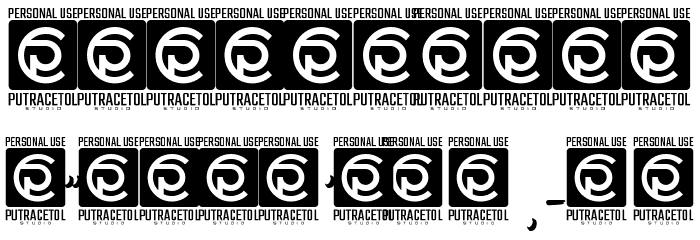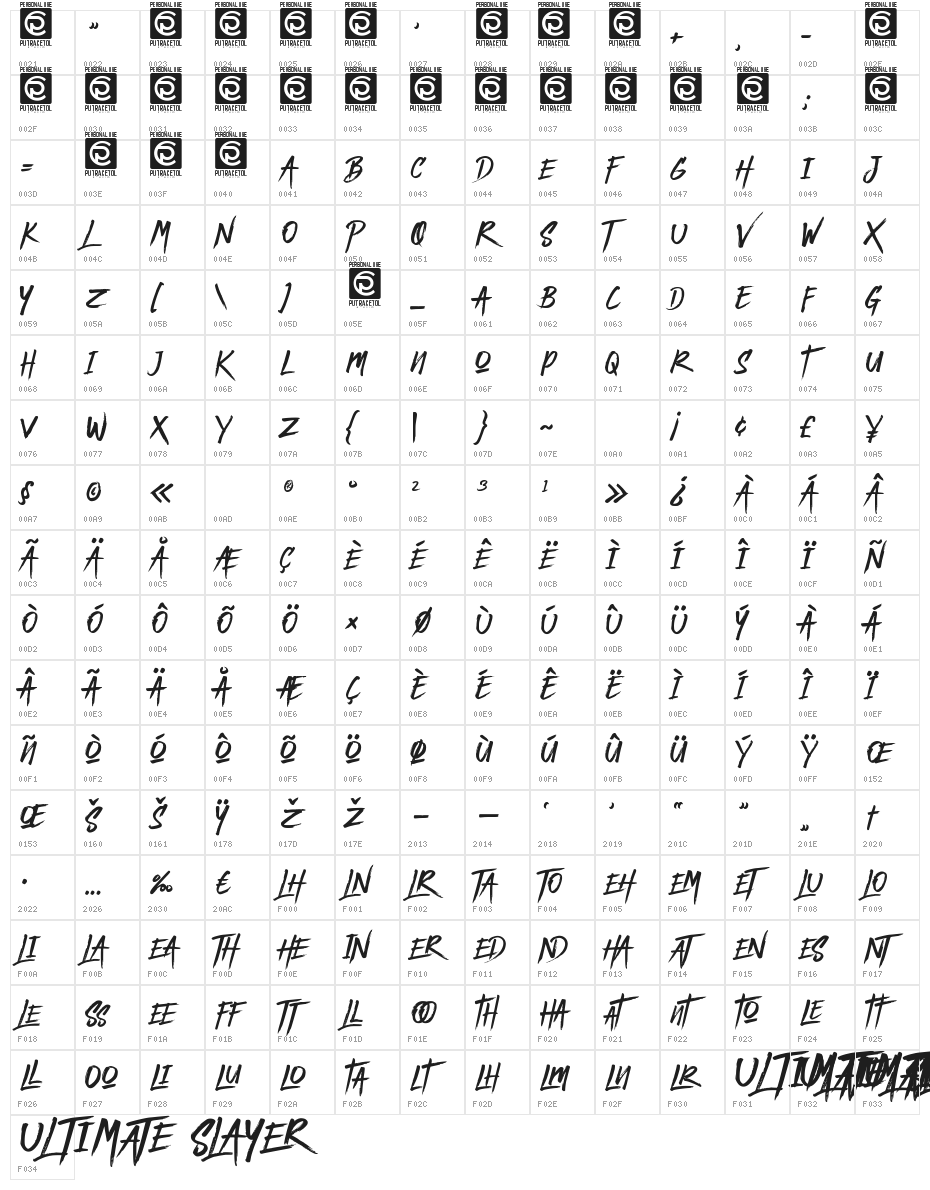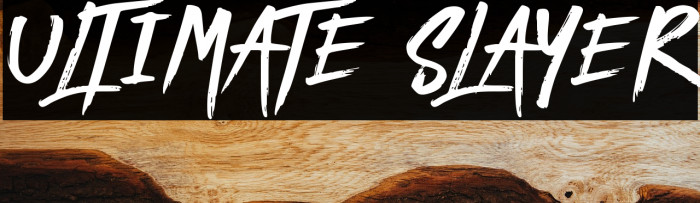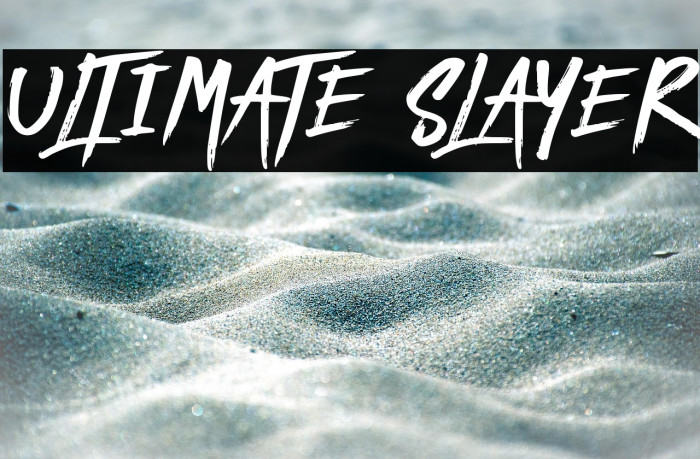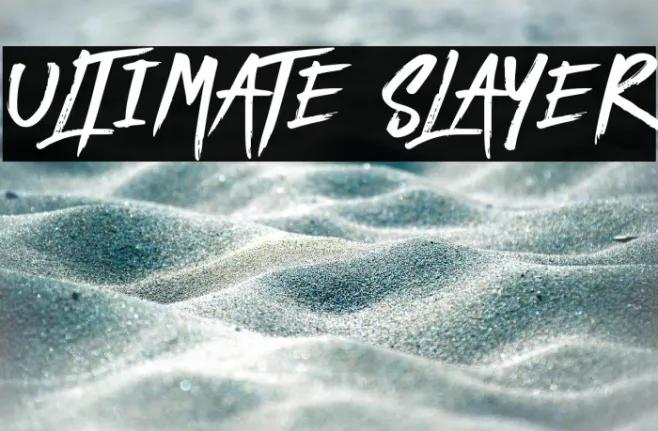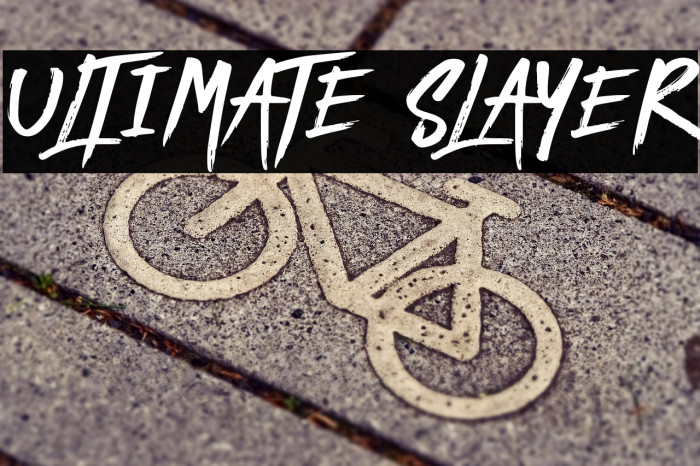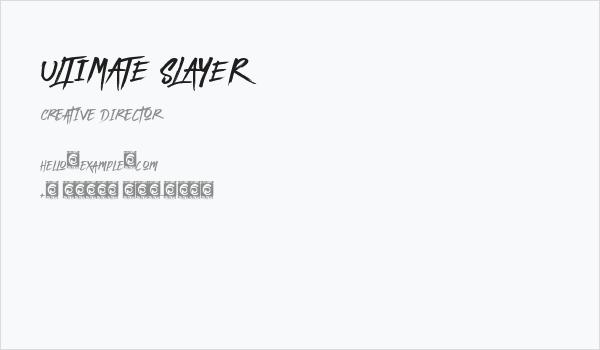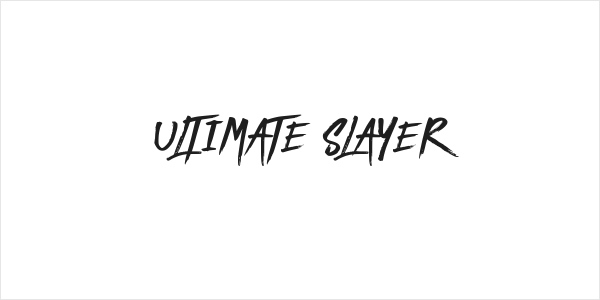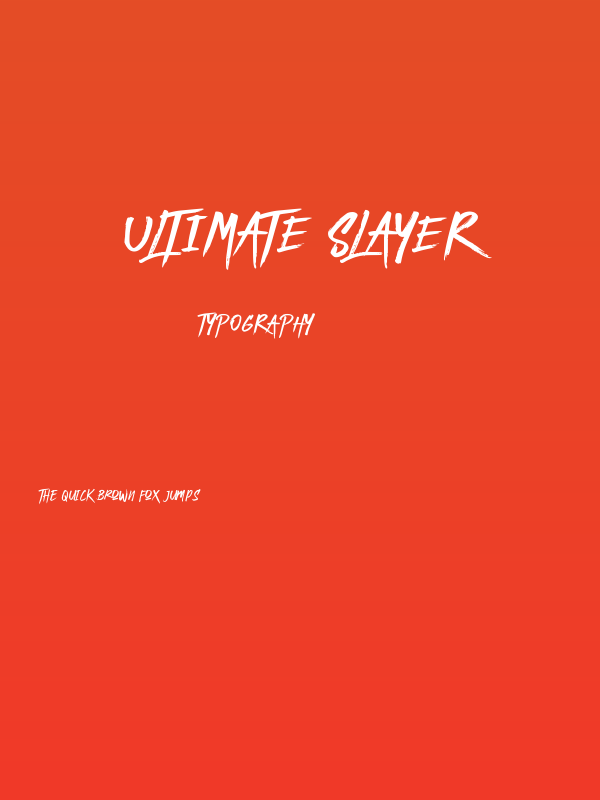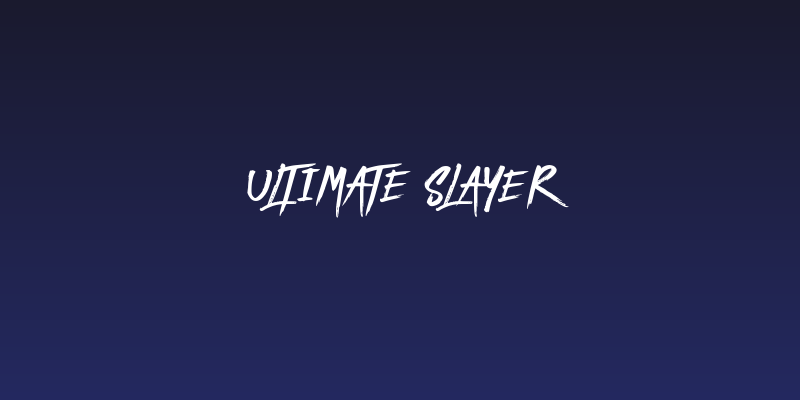
ULTIMATE SLAYER Font
ULTIMATE SLAYER Description
This font features a bold, dynamic brush style that exudes energy and movement. The strokes are irregular and expressive, giving it a hand-painted appearance. The uppercase letters are particularly striking, with sharp angles and a sense of urgency. The lowercase letters maintain the same energetic style, with some characters having unique, exaggerated forms. The numbers and special characters follow the same aesthetic, ensuring consistency across all glyphs. This font is ideal for projects that require a strong, impactful visual presence.
| Proposed Projects | Perfect for posters, album covers, branding, and any design needing a bold, artistic touch. |